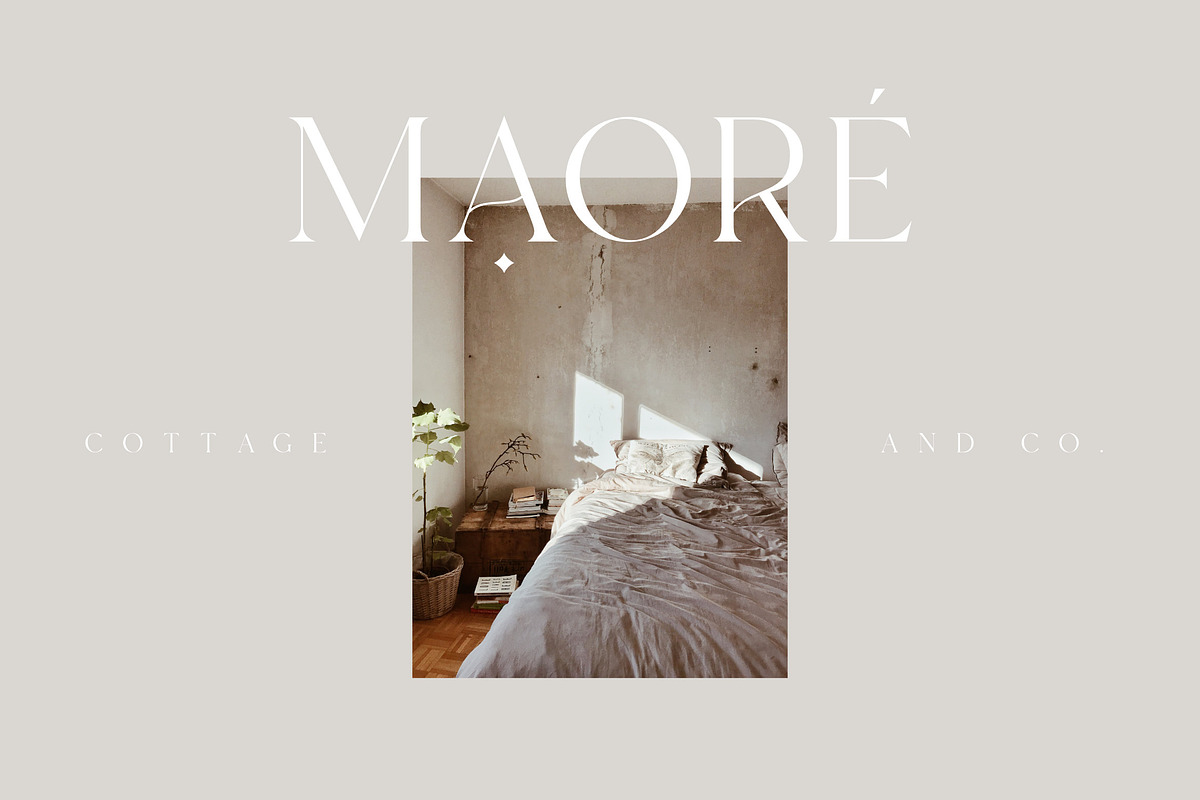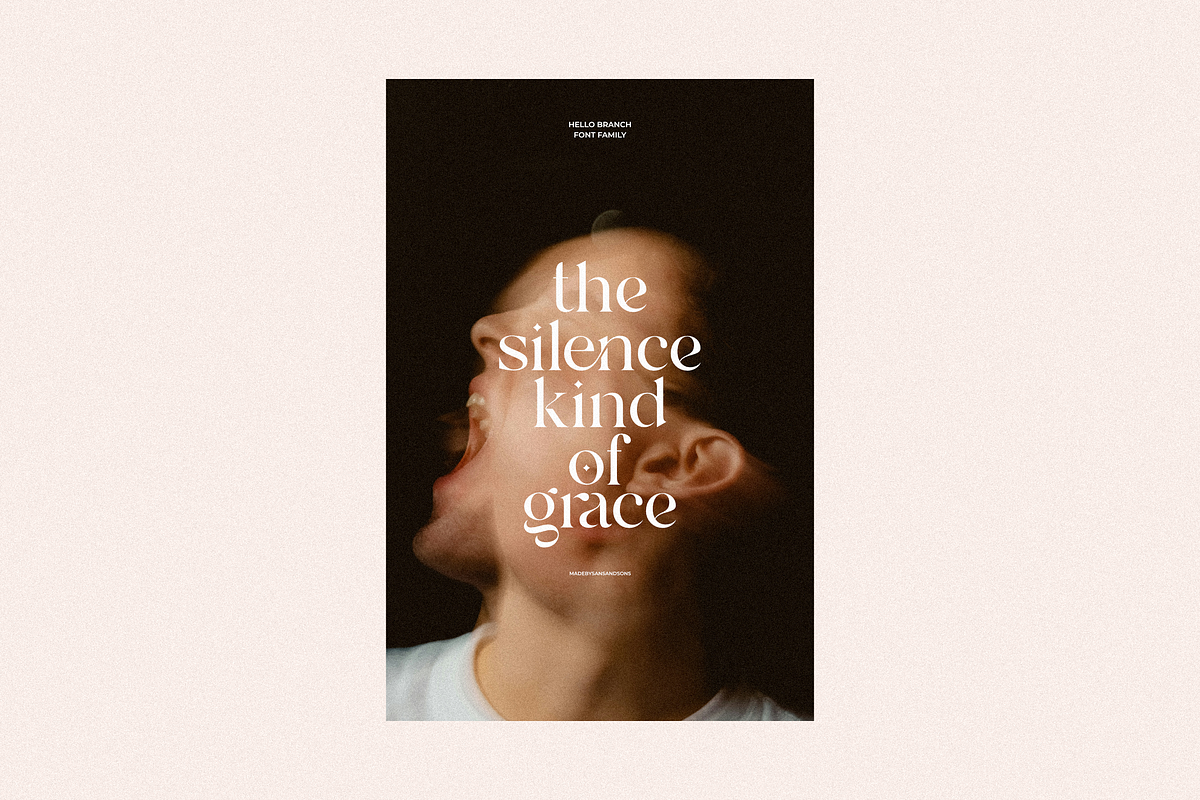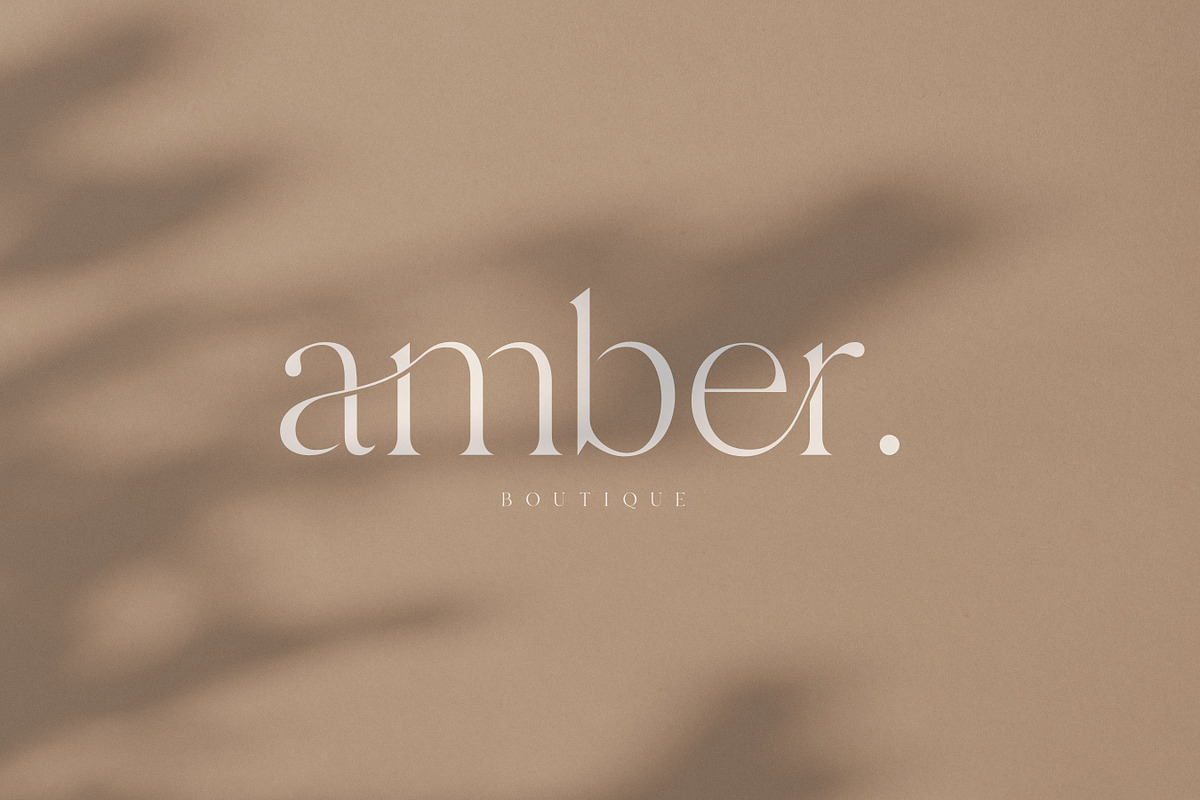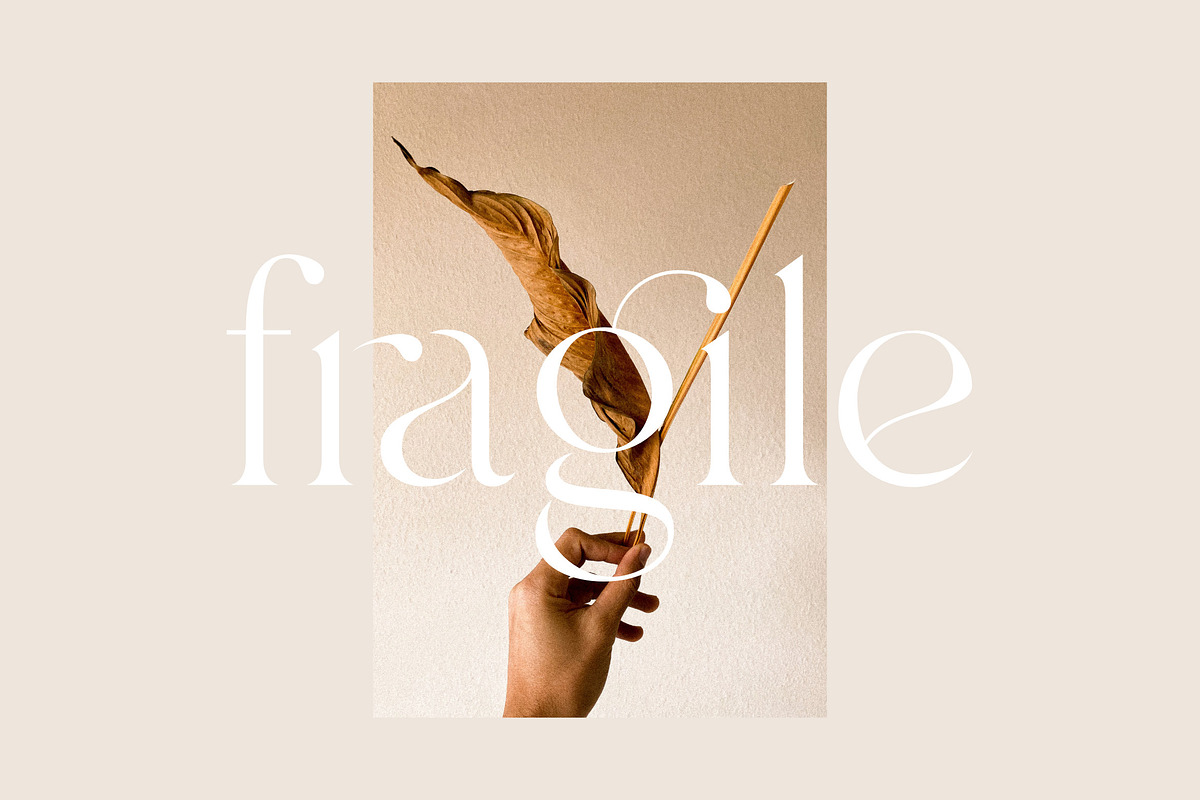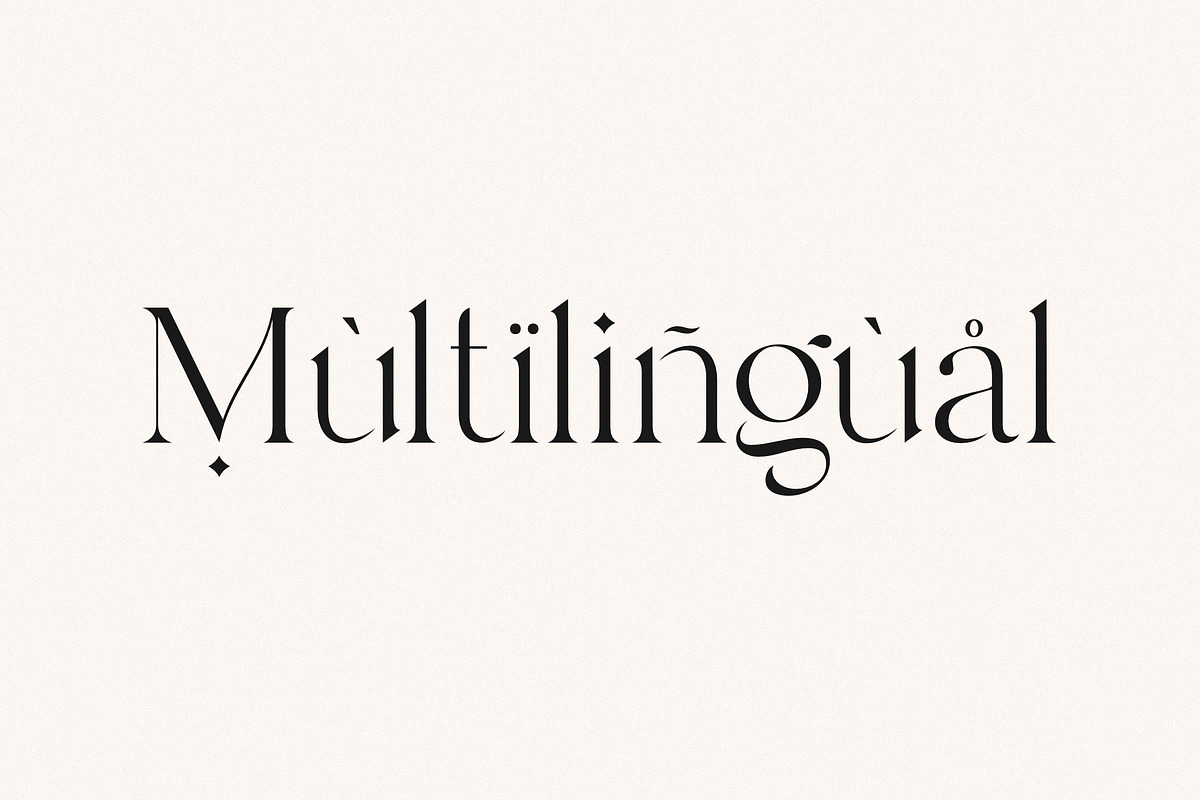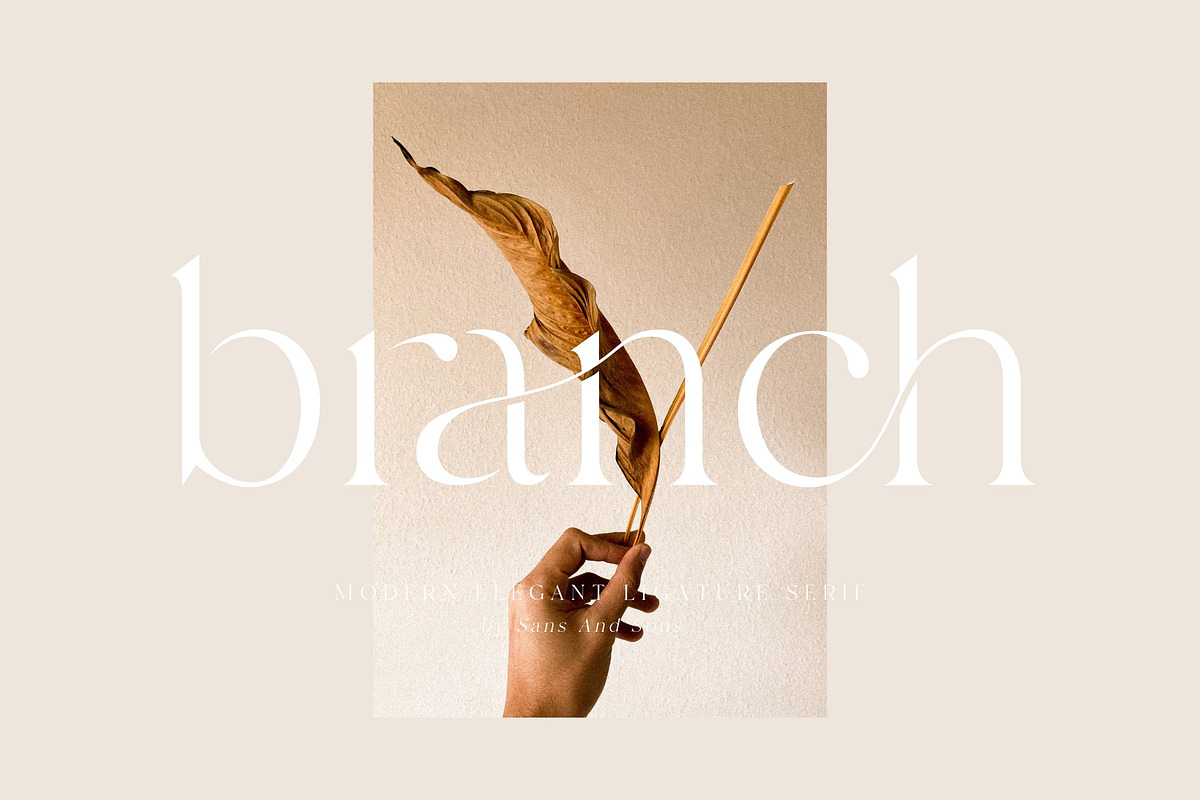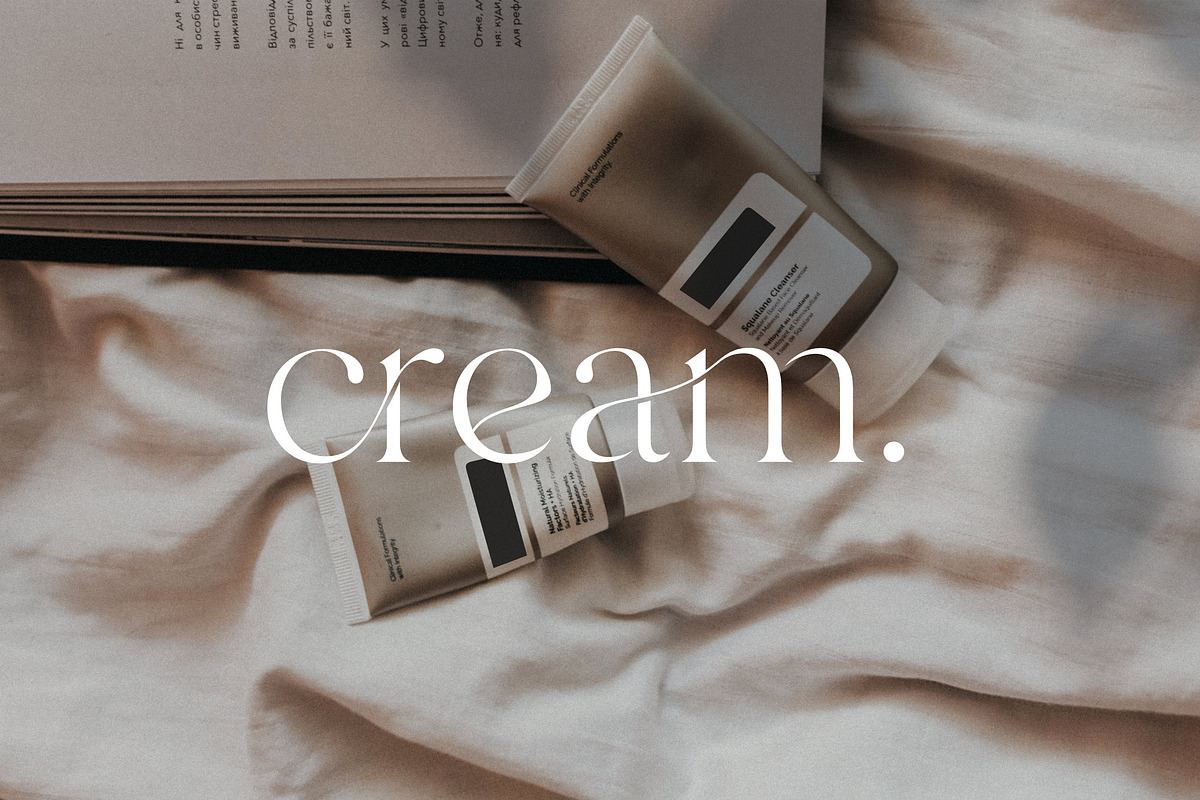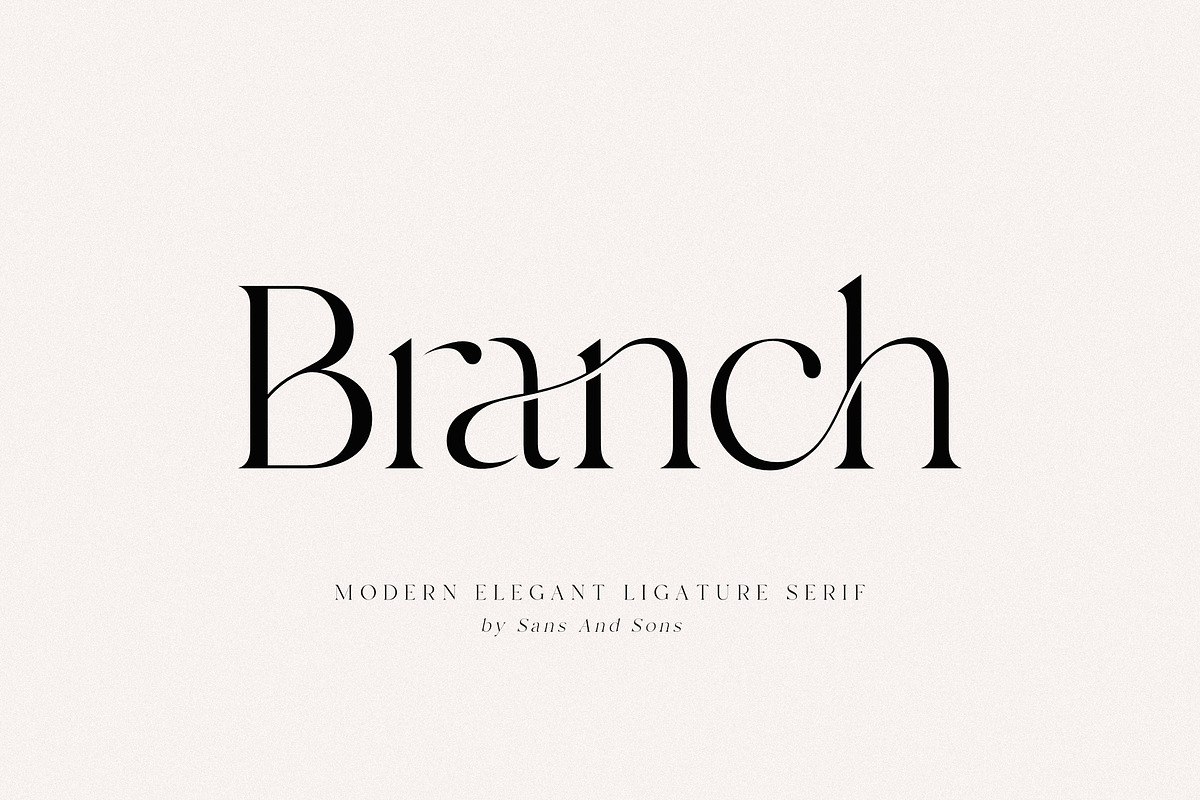
Branch - Modern Ligature Serif
Branch - Elegant Ligature Font by Sans and Sons
introducing our new "Branch" Modern Ligature with Elegant Style this is perfect for branding, logos, invitation, masterheads and more.
Branch Features :